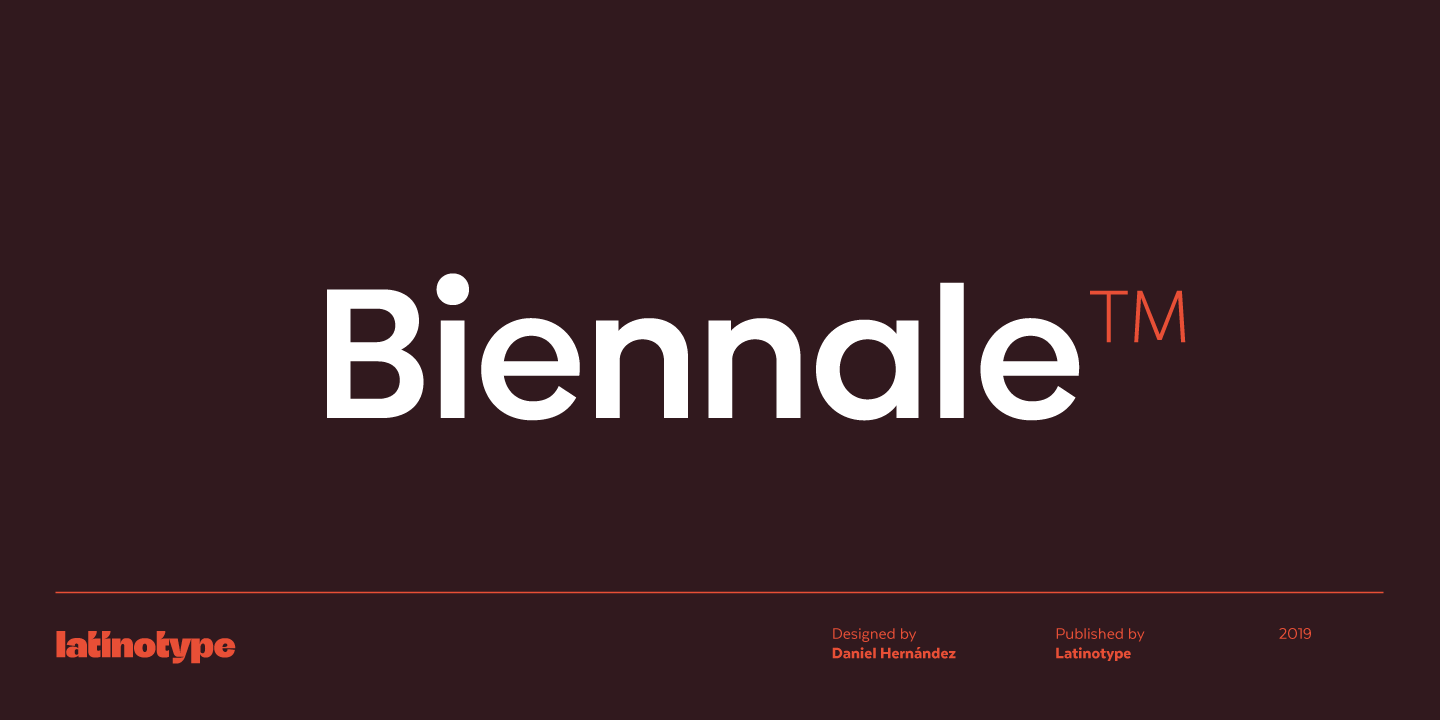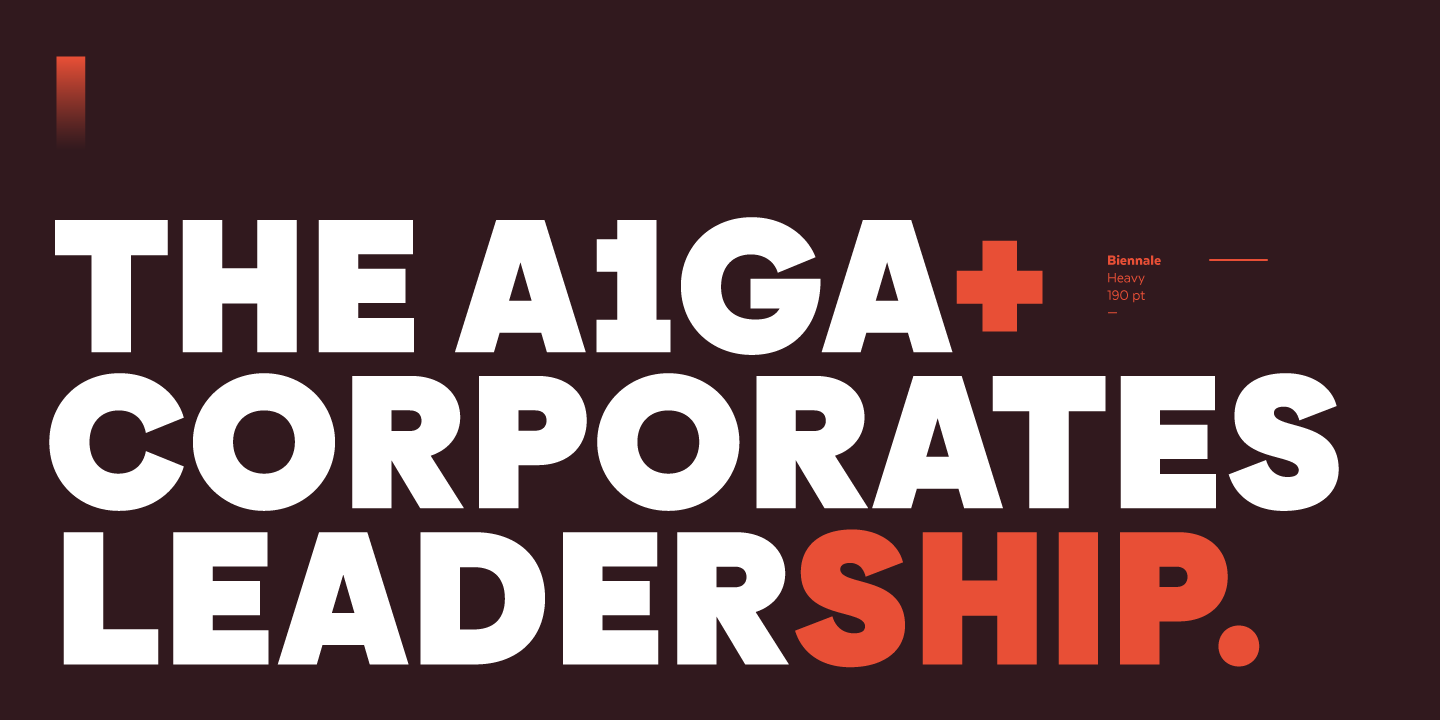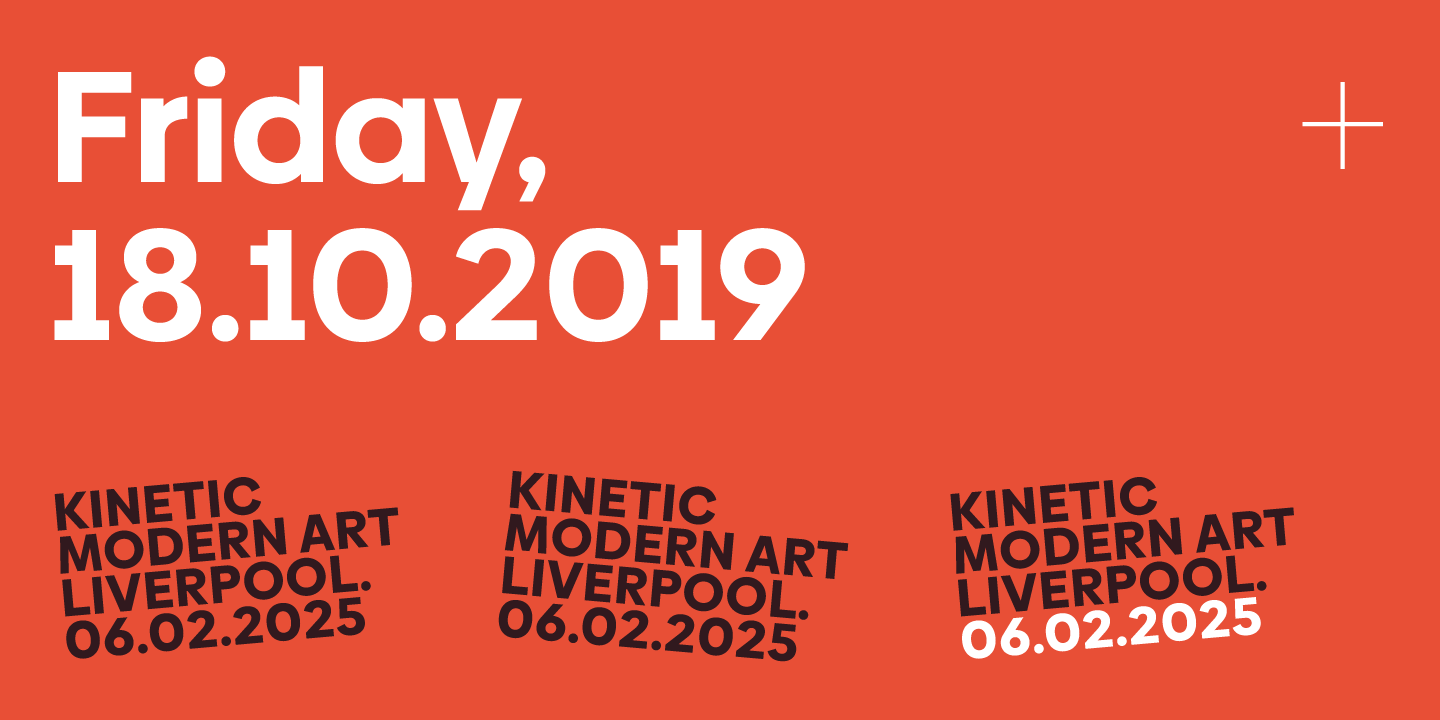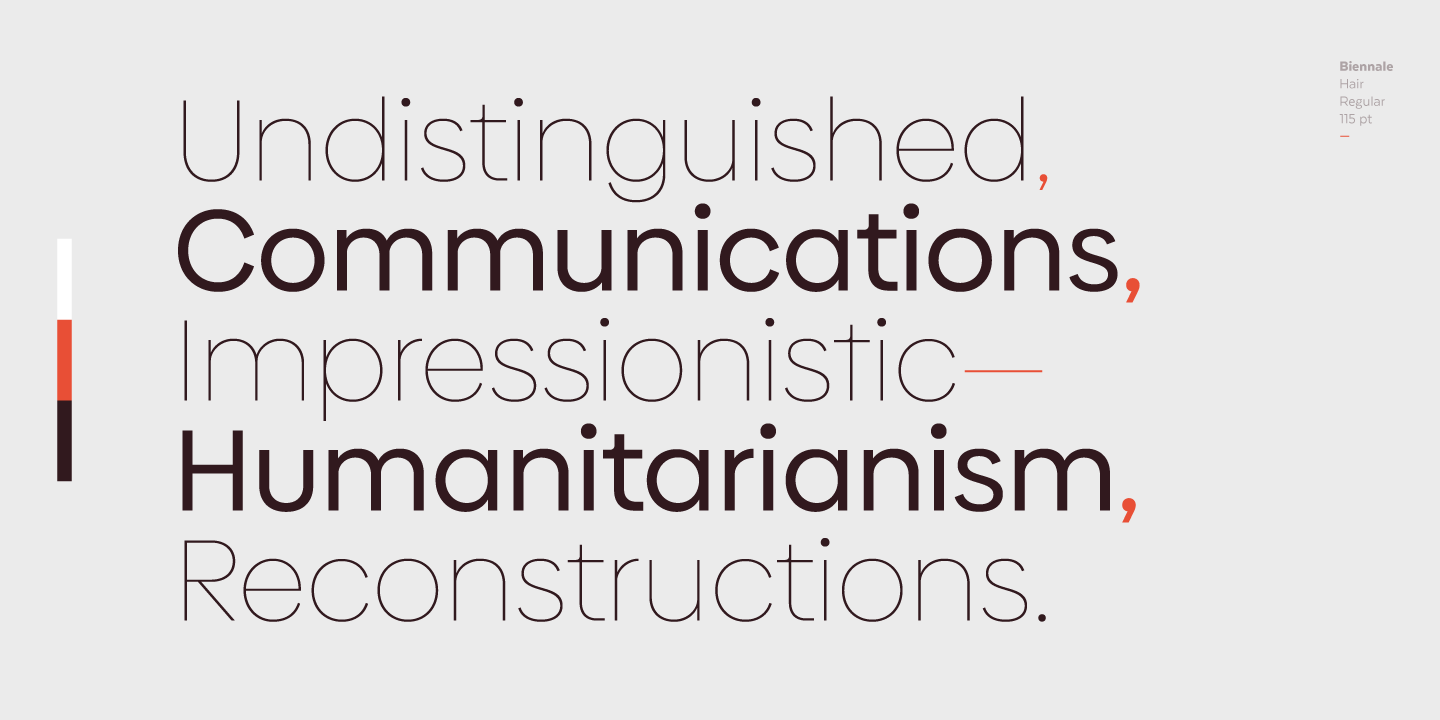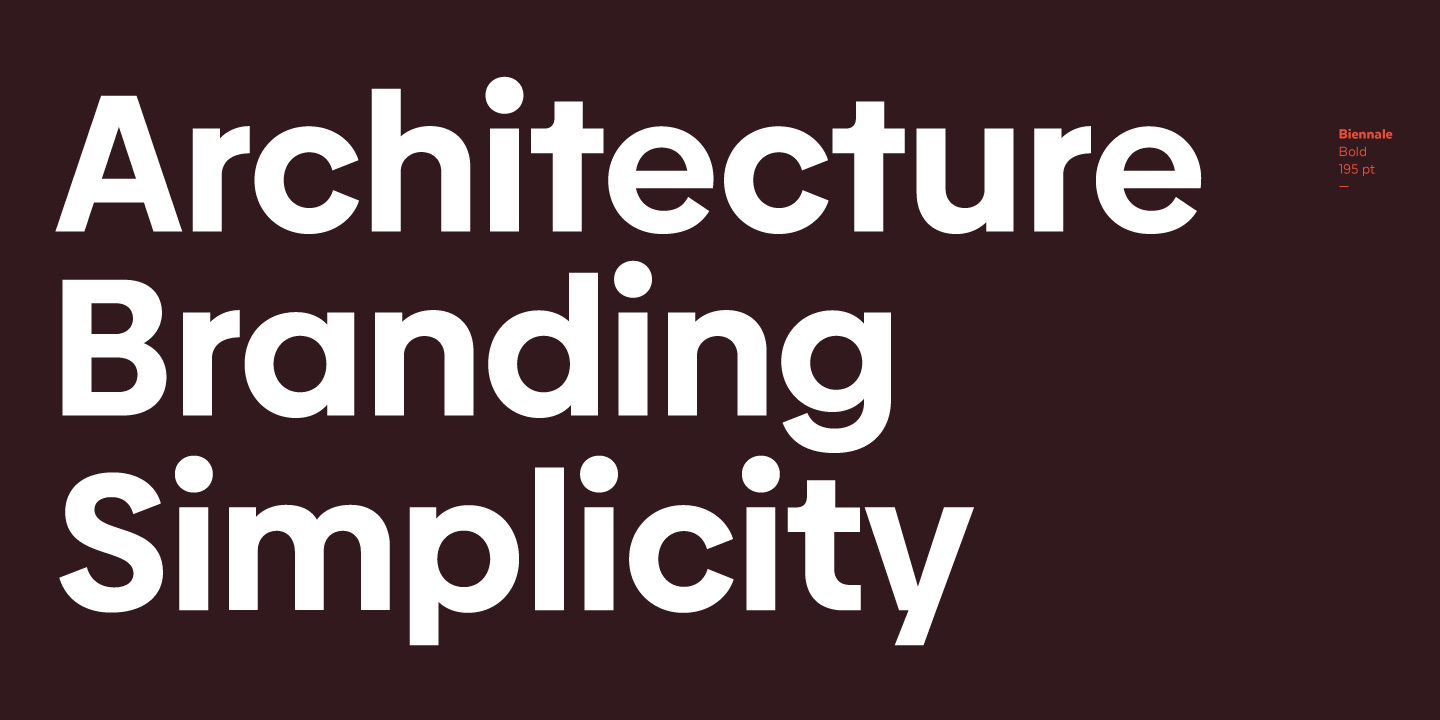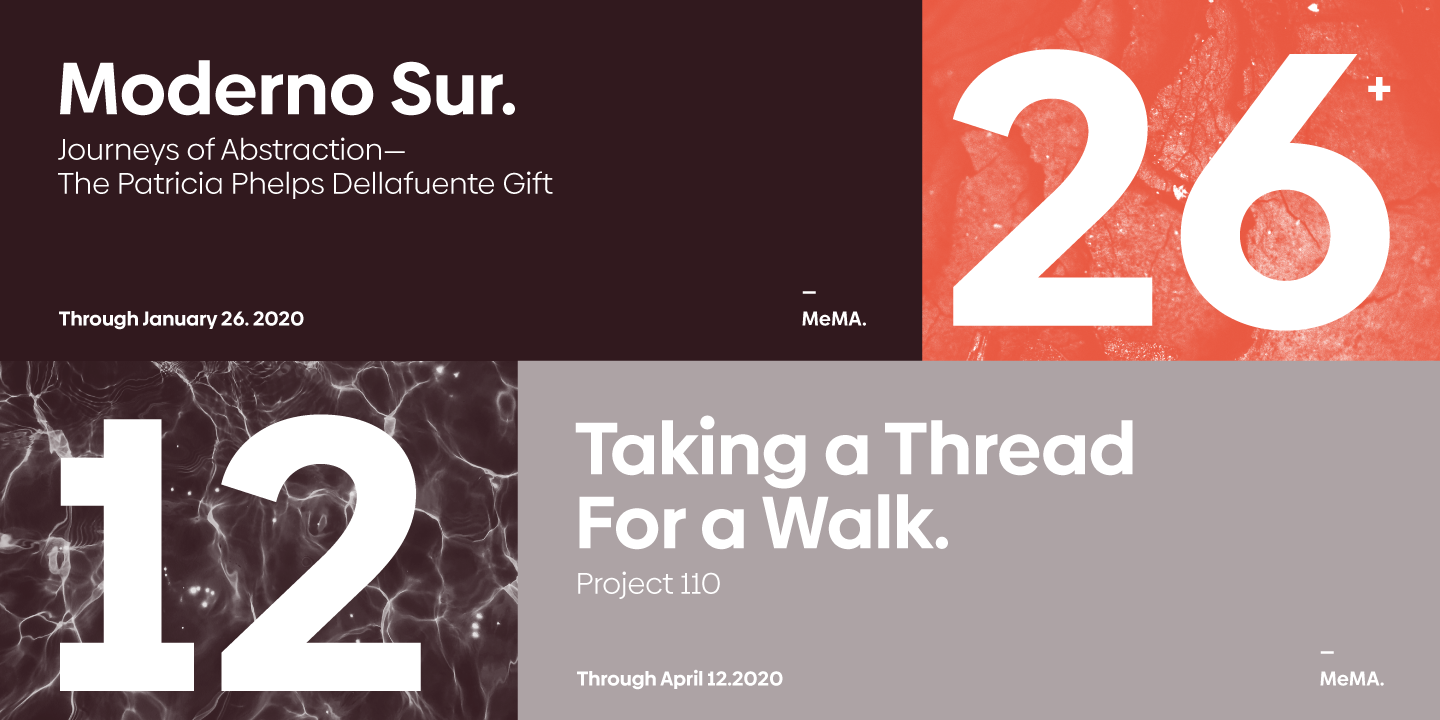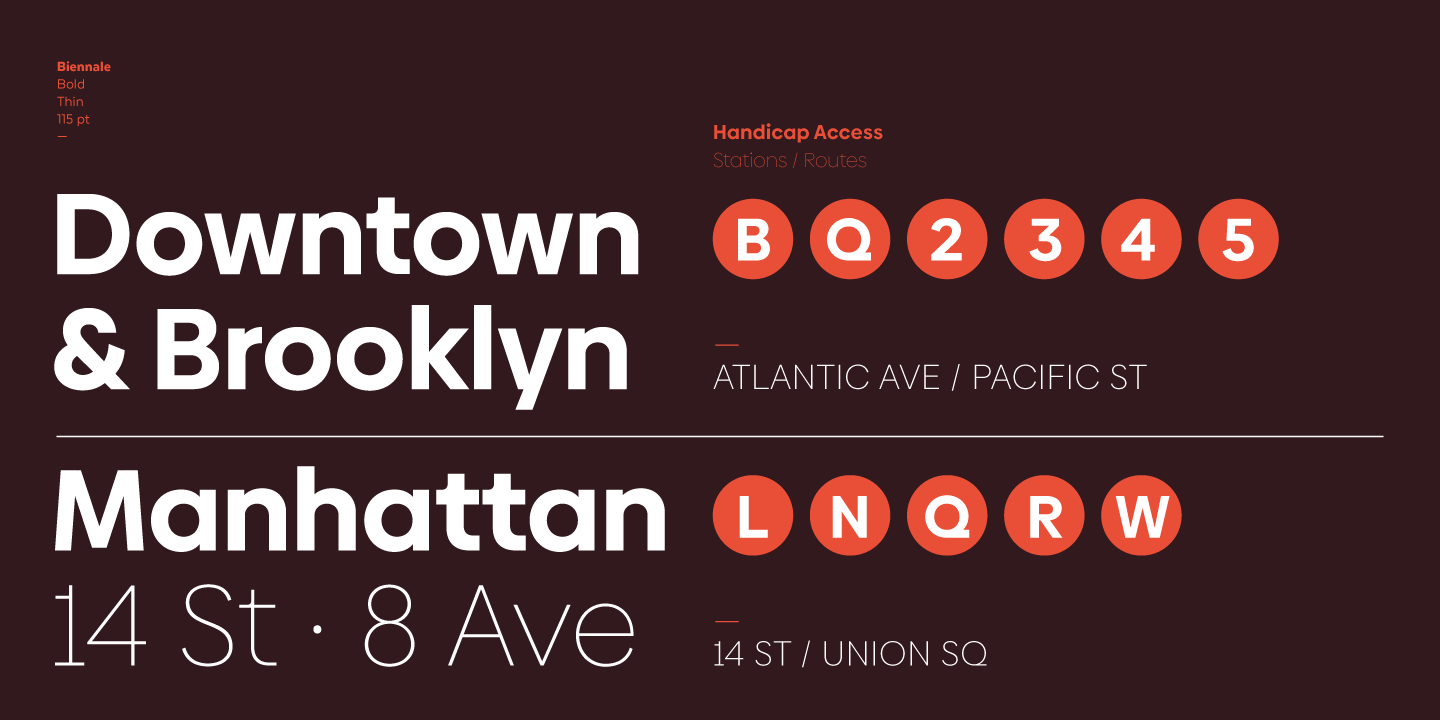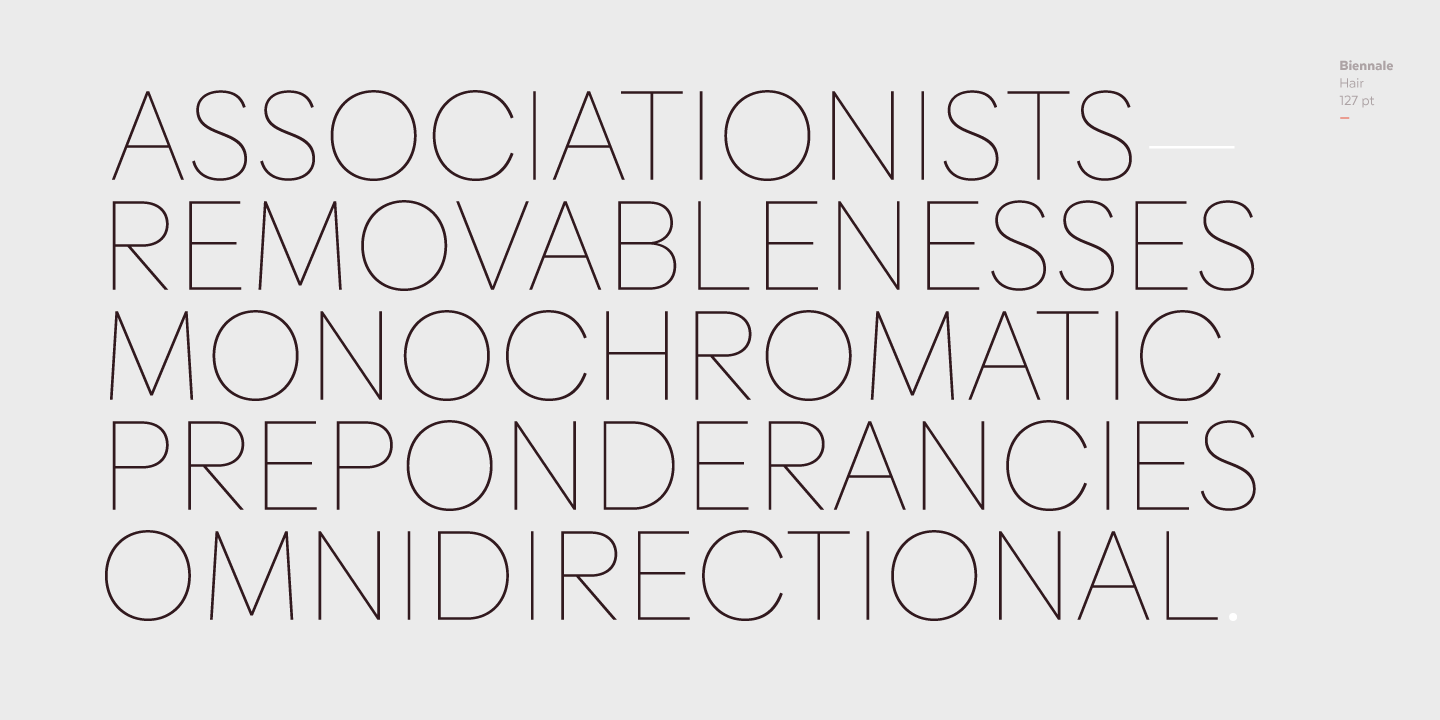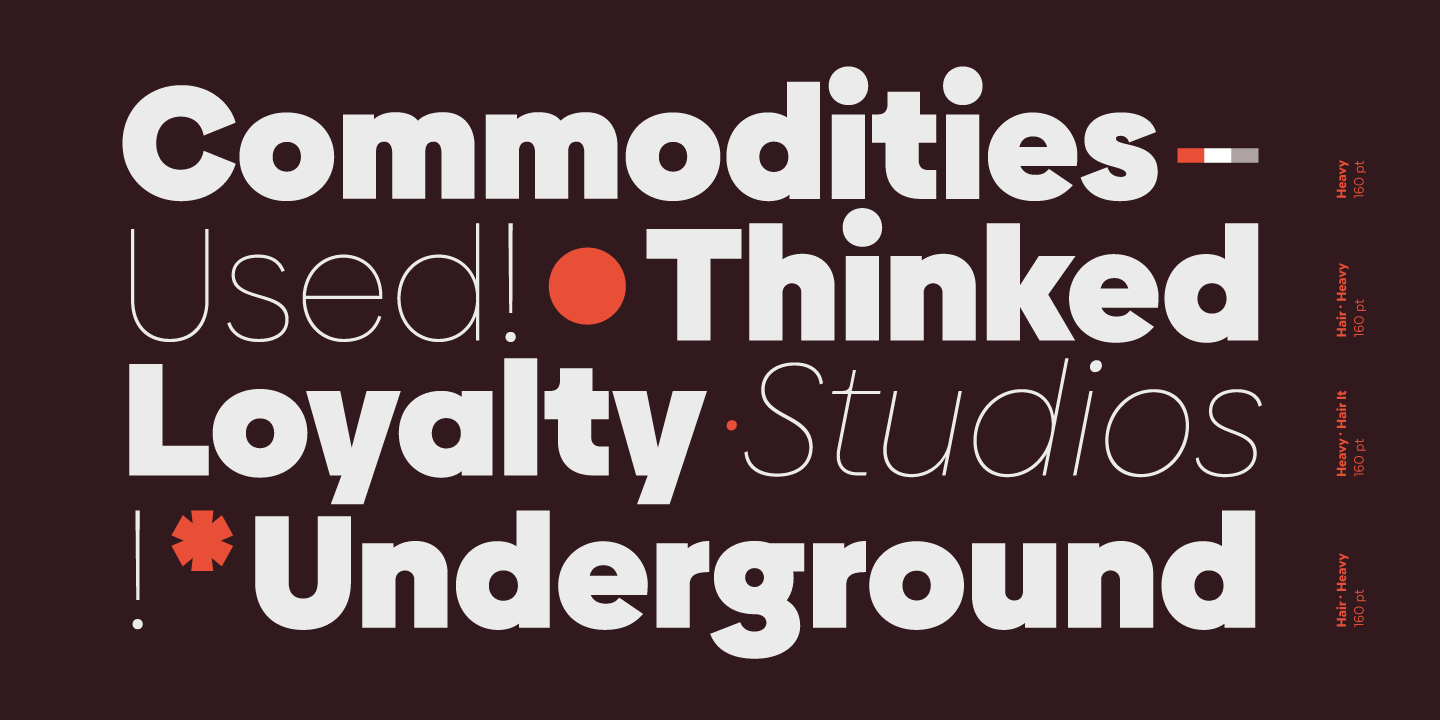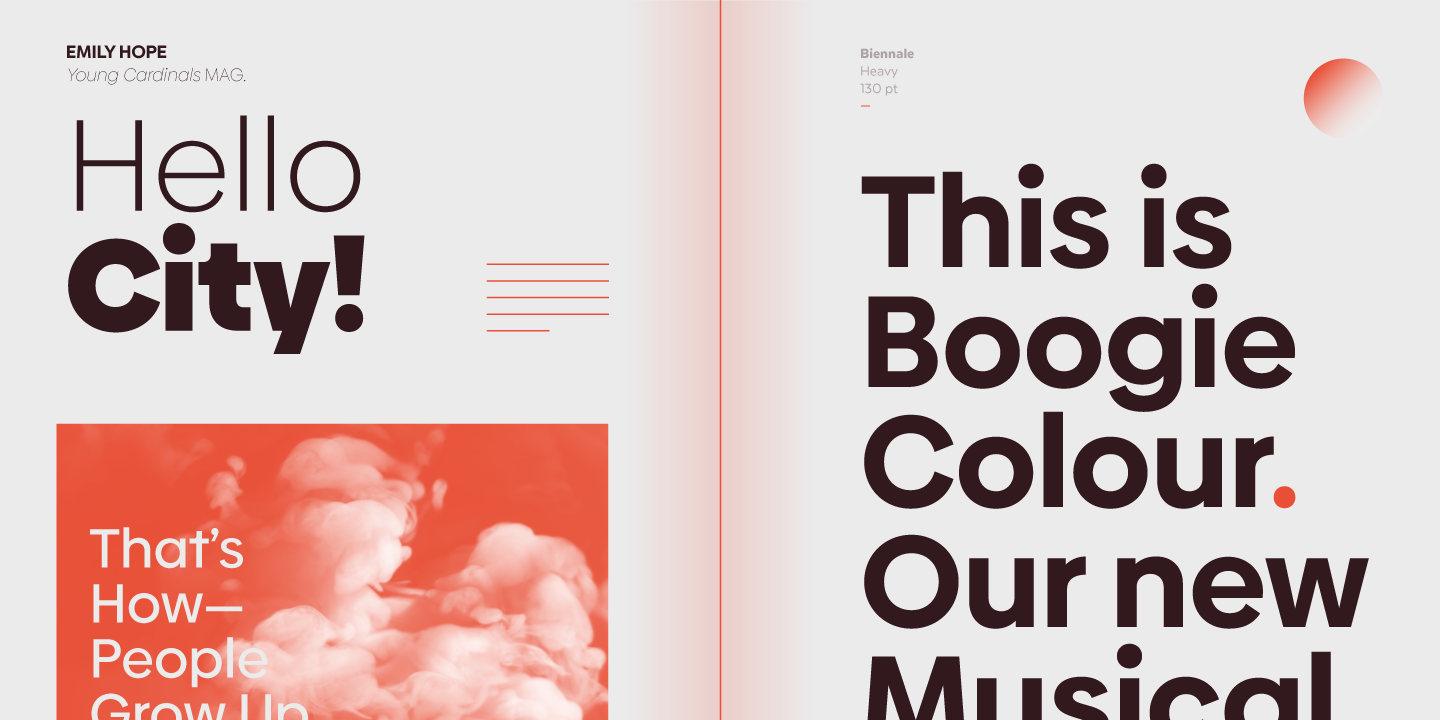
Biennale
Designer
Daniel Hernández
Biennale is a geometric typeface with a strong character and a large x-height which make it an excellent choice for a wide range of applications, such as headlines or branding.
Although common in style, Biennale distinctive details and color on the page allow users to create really unique designs. The font comes in 11 weights, from Hair to Heavy, and includes matching italics.